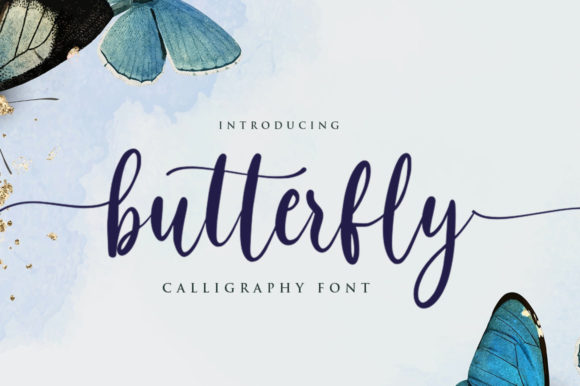
The Magic of Butterfly Font: A Designer’s Delight
I’ll never forget the time I was working on a project for a client who wanted a elegant and sophisticated look. I had spent hours browsing through font libraries, but nothing seemed quite right. That’s when I stumbled upon the Butterfly font, and it was love at first sight! 💕 The smooth, flowing lines and delicate swashes instantly elevated my design to a whole new level. In this article, I’ll share with you why I’m obsessed with this beautiful handwritten font and how you can make the most of it in your own designs.
An Honest Review of Butterfly Font
• ✨ Smooth and elegant handwritten style that’s perfect for creative projects
• 💫 Highly versatile and can be used for a wide range of designs, from wedding invitations to branding and packaging
• 🎨 Beautifully crafted with attention to detail, making it a joy to work with
While Butterfly font is an amazing addition to any design project, there are a few things to keep in mind:
• 🤔 Some users may find the font a bit too delicate for certain applications, such as large-scale signage or bold headlines
• ⚠️ As with any font, it’s essential to test it thoroughly for any kerning or spacing issues, especially when using it for body text
Butterfly font was designed by a team of skilled typographers who wanted to create a font that would evoke the feeling of elegance and sophistication. Inspired by the delicate lines and curves of butterfly wings, the font was crafted with attention to detail and a passion for beauty. Whether you’re a designer, crafter, or creative hobbyist, Butterfly font is sure to become a favorite in your collection.
Q: Is Butterfly font suitable for body text?
A: While Butterfly font is beautiful and elegant, it may not be the best choice for body text due to its delicate nature. However, it can be used for short paragraphs or captions with great effect.
Q: How do I access the glyphs and swashes in Butterfly font?
A: As a PUA encoded font, Butterfly font makes it easy to access the glyphs and swashes using the font’s built-in features or through the use of OpenType features in compatible design software.
Q: Is Butterfly font available in different weights or styles?
A: Currently, Butterfly font is available in a single weight, but its versatility and range of glyphs and swashes make it suitable for a wide range of design applications.